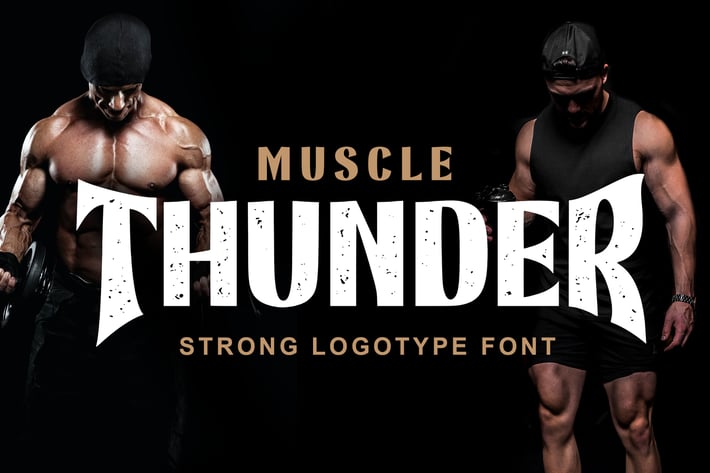
Muscle Thunder Logotype Font
Muscle thunder is elegant modern sans serif font . It can easily be matched to an incredibly large set of projects for your company/ corporate. Perfect for logo, poster, add it to your creative ideas and notice how it makes them stand out!